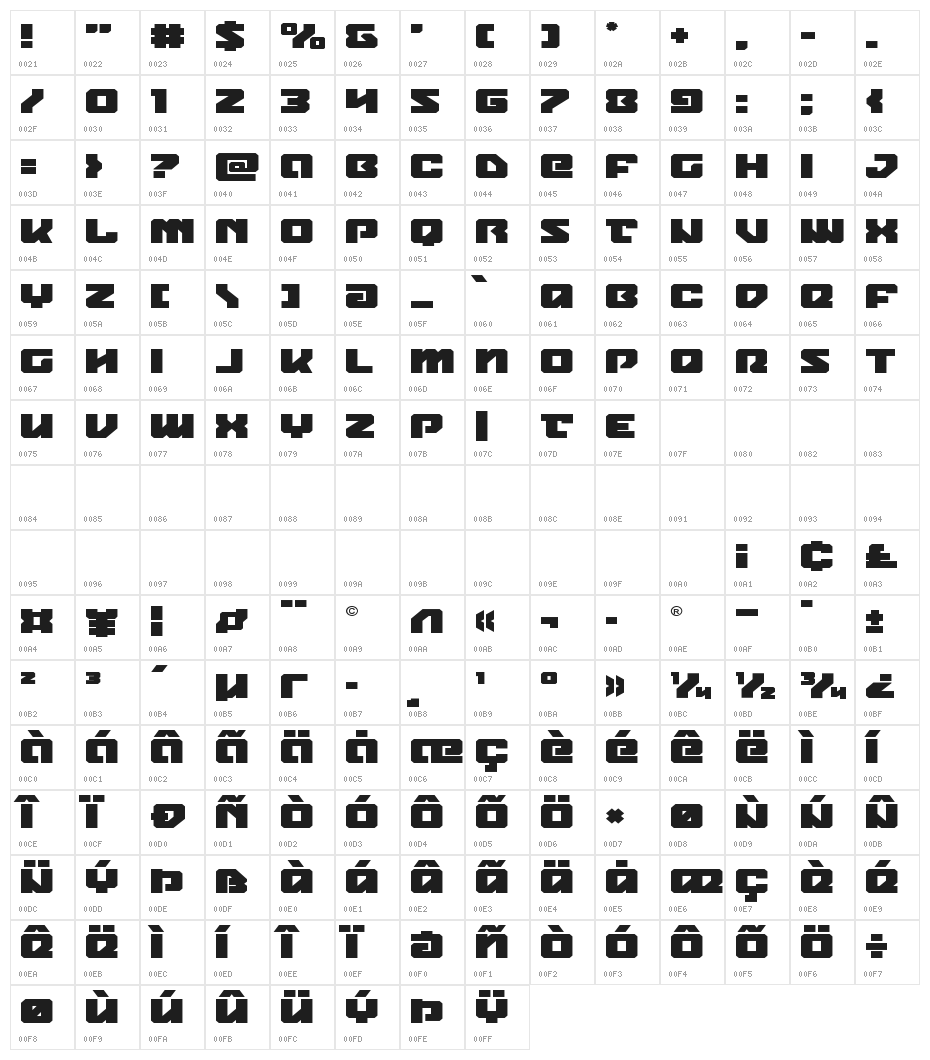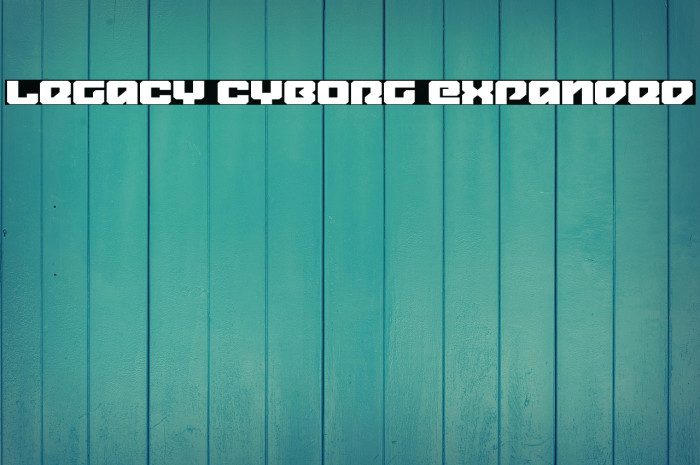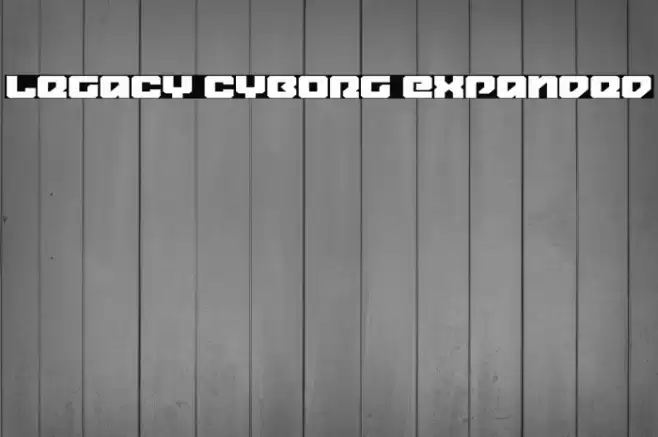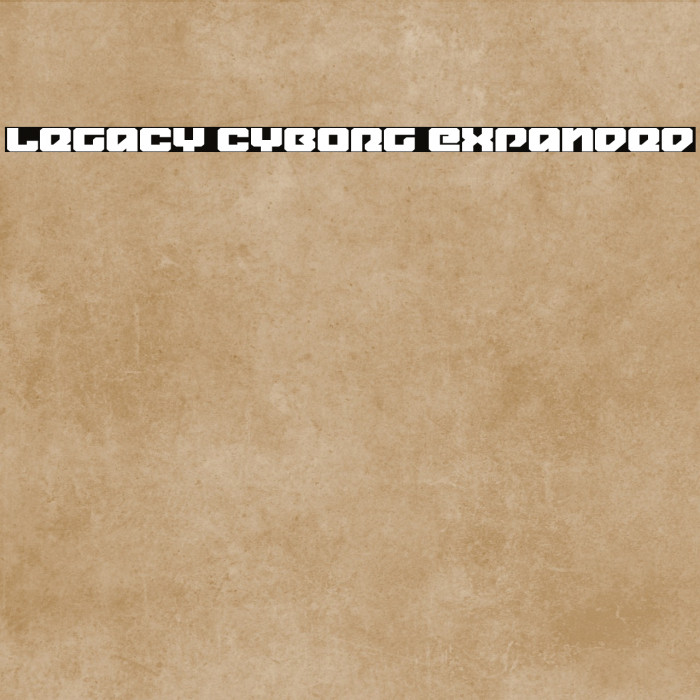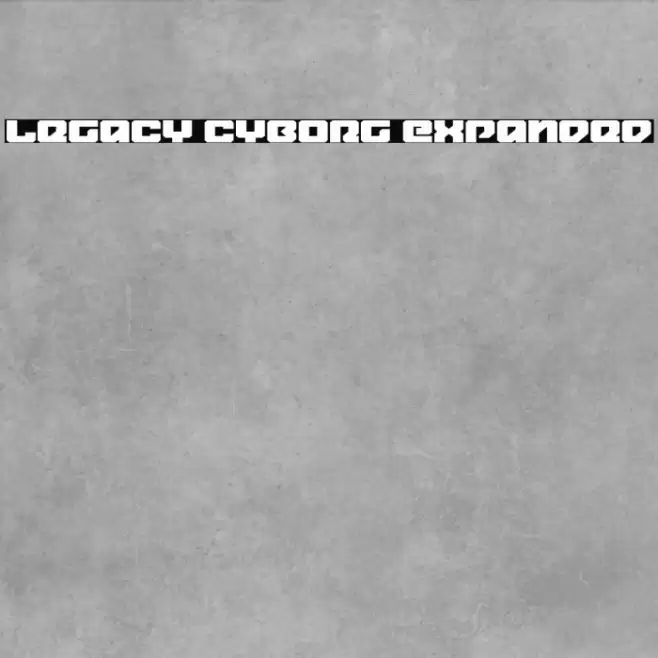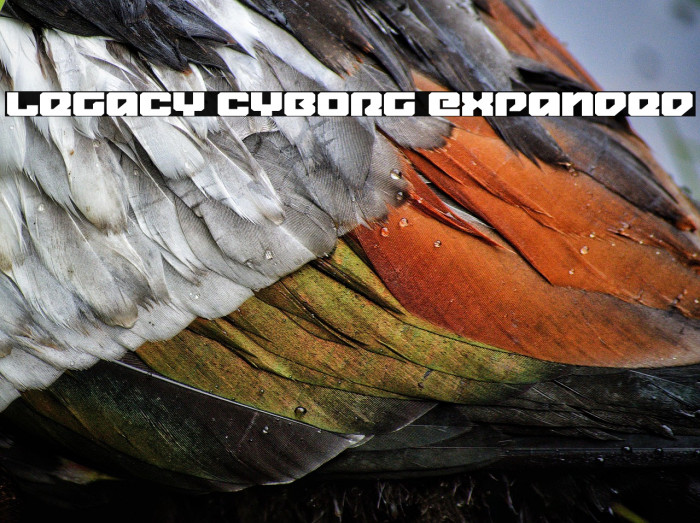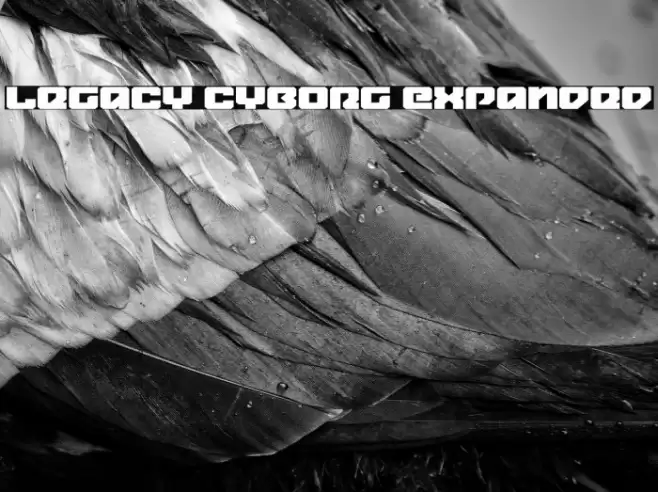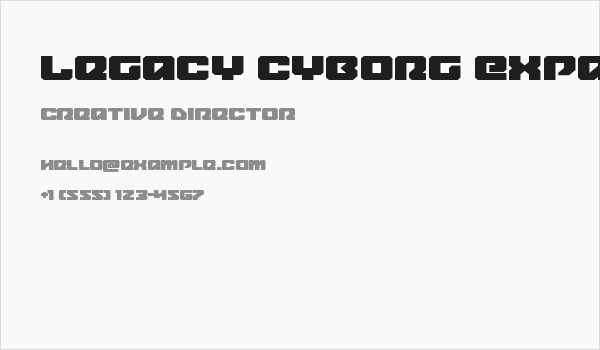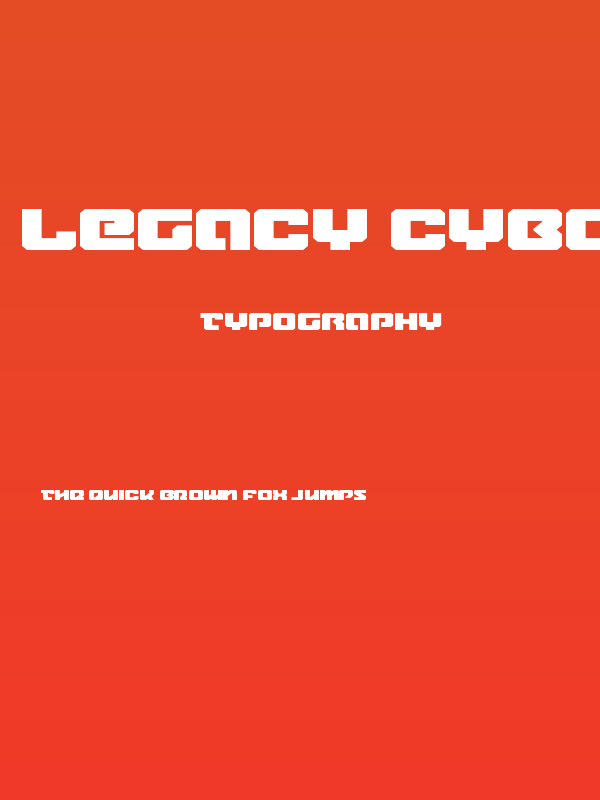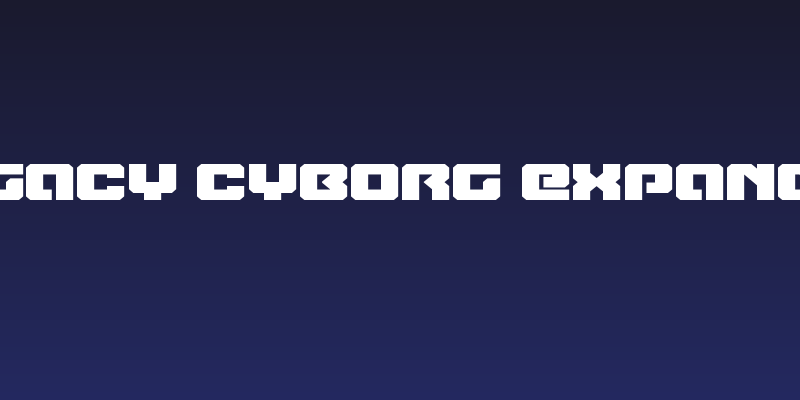
Legacy Cyborg Expanded Font
Legacy Cyborg Expanded Description
This font features a bold, futuristic design with a distinctly geometric and angular style. Each character is crafted with sharp edges and a blocky appearance, giving it a strong, industrial feel. The uppercase and lowercase letters maintain a consistent height, contributing to a uniform look. The numbers and special characters follow the same design principles, ensuring a cohesive appearance across all glyphs. This font's expanded width and tight character spacing enhance its boldness, making it ideal for impactful visual statements.
Overall StyleFuturistic
Proposed ProjectsIdeal for sci-fi themed projects, technology branding, video game titles, and futuristic posters.